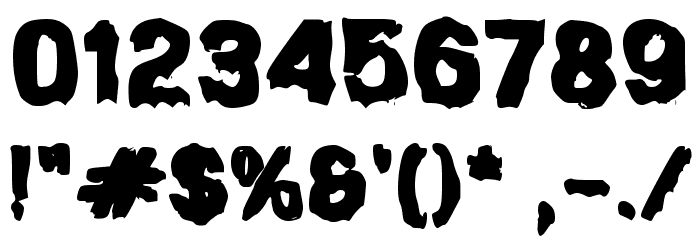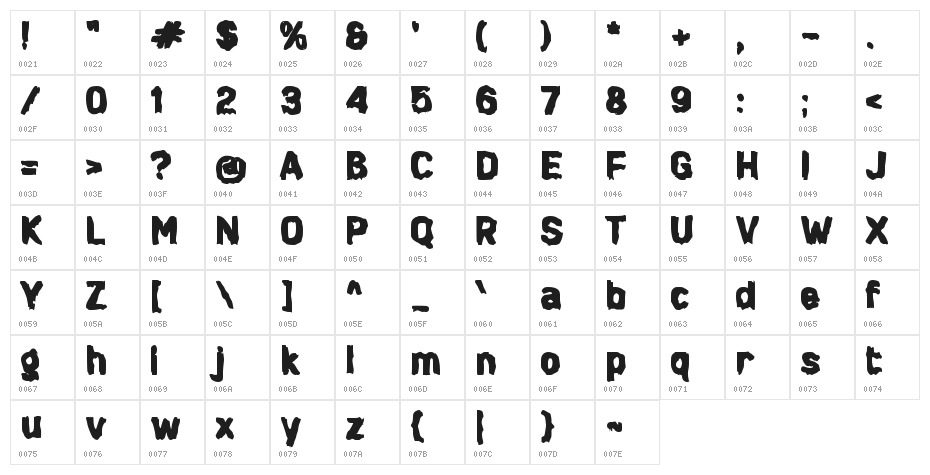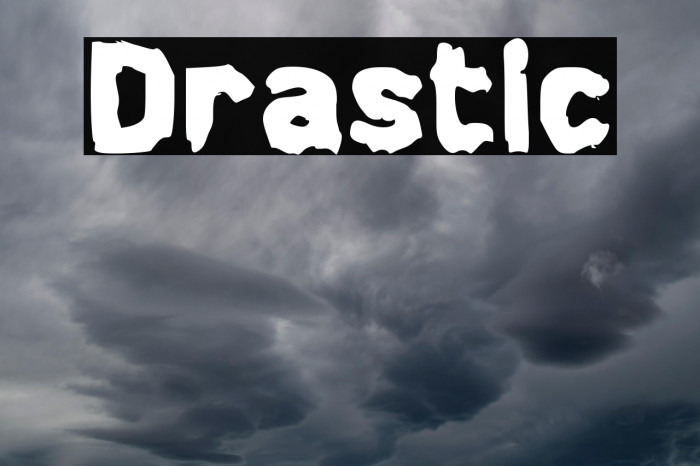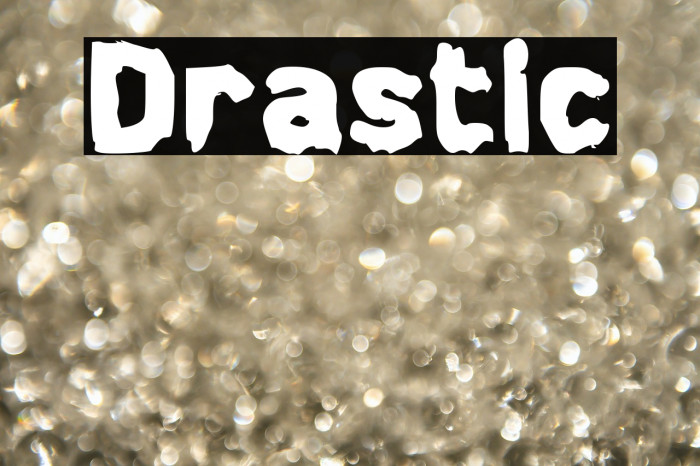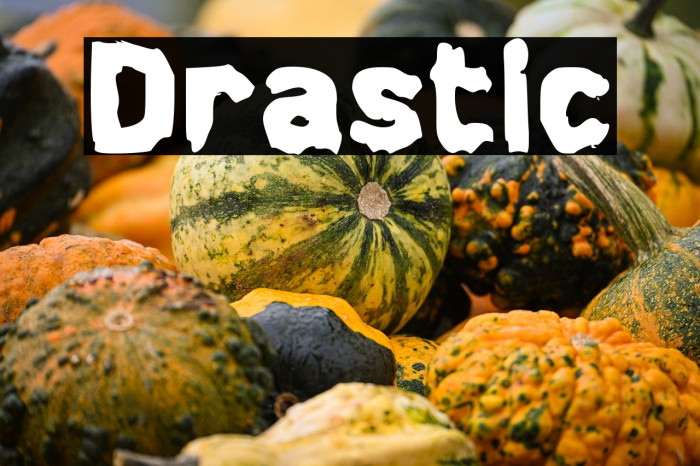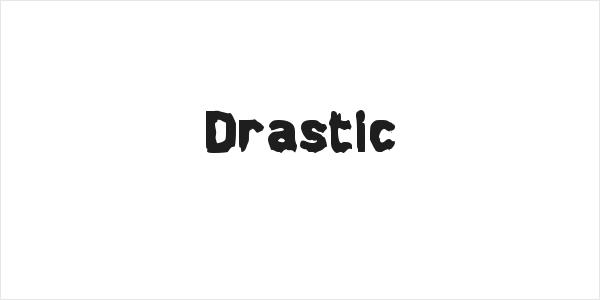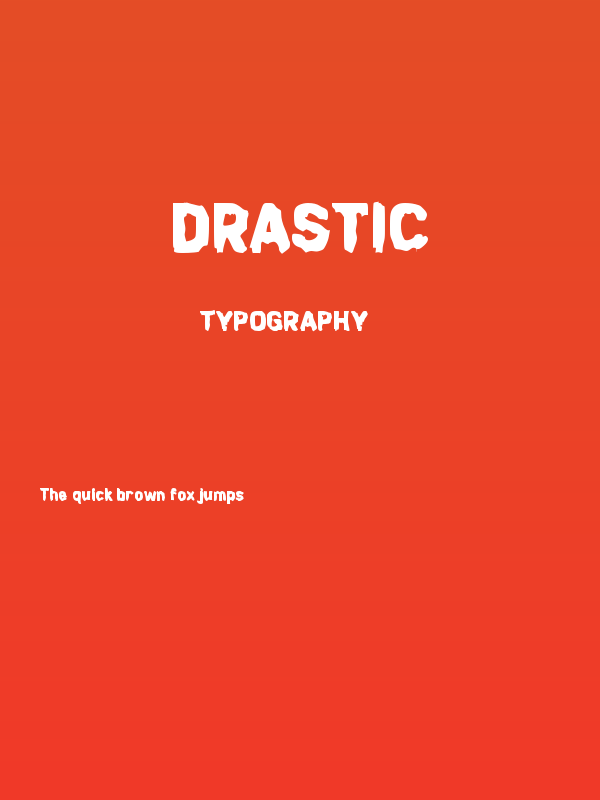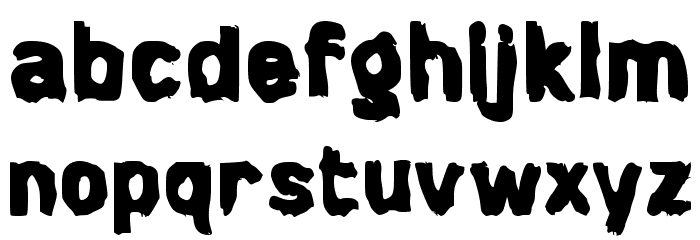
Drastic Font
Drastic Description
This font exhibits a bold and rugged style, characterized by its irregular and distressed edges, giving it a hand-painted or graffiti-like appearance. The uppercase and lowercase letters maintain a consistent thickness, contributing to a cohesive look despite the rough texture. Numbers and special characters follow the same design ethos, ensuring uniformity across all glyphs. The font's unique style makes it stand out, ideal for projects that require a strong visual impact. Its boldness and distinctive character make it suitable for creative and unconventional designs.
| Proposed Projects | Ideal for posters, album covers, street art designs, and branding that requires a bold statement. |